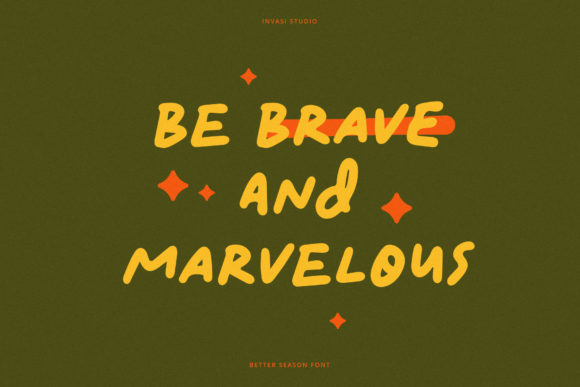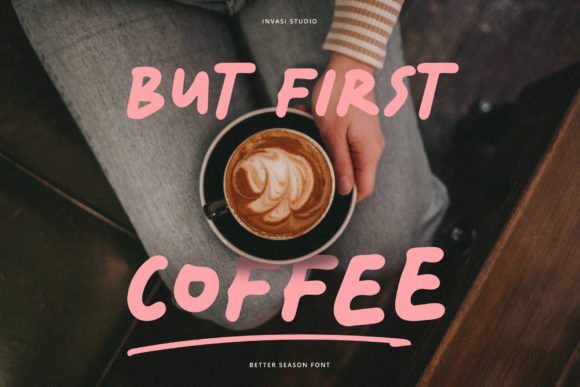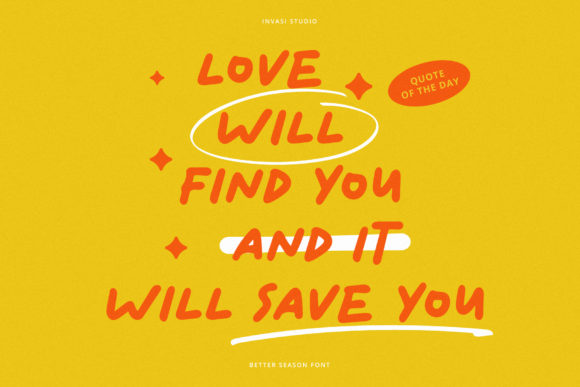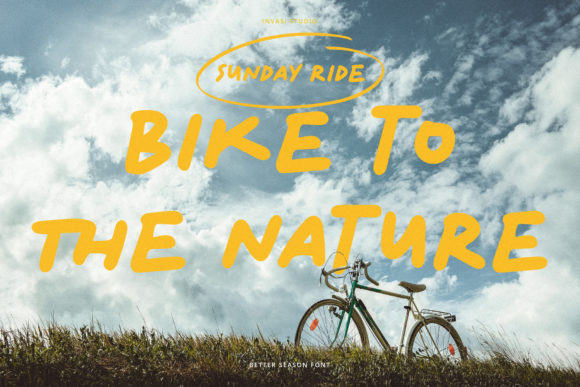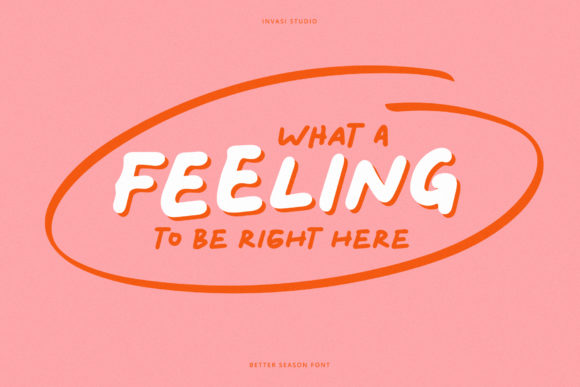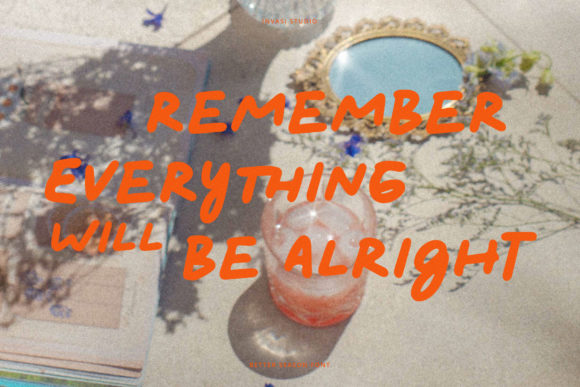
Discover the Perfect Typography for Your Next Design Project
Do you remember that moment when everything falls into place, and your design concept just clicks? It’s a feeling every designer strives for, and it’s exactly what happens when you pair the right typography with your project. For those looking to add a touch of whimsy and charm to their designs, we’ve got just the thing: the Better Season Font.
This friendly, all-caps display font is more than just a pretty face – it’s a versatile tool that can elevate your designs in an instant. With its natural and unique style, the Better Season Font is incredibly fitting to a large pool of designs, making it a valuable addition to any designer’s toolkit. Whether you’re working on a branding project, creating a social media campaign, or designing a website, this font is sure to impress.
Better Season Font Key Features
- Font Family: Better Season Font offers a unique and elegant design with multiple font styles, including regular, bold, italic, and bold italic.
- Unique Characteristics: Better Season Font features a unique blend of modern and classic elements, with intricate details and subtle texture, making it perfect for branding, typography, and editorial design.
Designer Review: Better Season Font
I recently had the chance to work with the Better Season Font, and I wanted to share my honest thoughts on this typography piece. ✨ First, I was impressed by the font’s versatility – it’s suitable for a wide range of projects, from elegant invitations to modern websites.
The Better Season Font also boasts a unique and striking aesthetic. ✨ The font’s blend of modern and vintage elements makes it a great choice for designers looking to add some visual interest to their projects. Additionally, the font is highly legible, making it an excellent choice for body text.
- ⚠️ The font may not be suitable for projects that require a more neutral or minimalist aesthetic. The Better Season Font is quite bold and eye-catching, which may not be the best fit for all projects.
- ⚠️ The font’s uniqueness can sometimes feel overwhelming. It may take some time to get used to, especially for designers who prefer more traditional typography.
Overall, I would give the Better Season Font 4 out of 5 stars. While it may have some limitations, I believe it’s a great addition to any designer’s toolkit. With a little practice, you can unlock the full potential of this unique and stylish font.
Better Season Font is a versatile font that can be used in a variety of applications, including:
- Business cards
- Brochures
Playfair Display is a luxurious and elegant serif font, perfect for high-end branding and packaging design. It features intricate details and swashes, making it ideal for creating a sophisticated and luxurious atmosphere. Compared to Better Season Font, Playfair Display has a more formal and classic feel, while Better Season Font is more modern and minimalist.